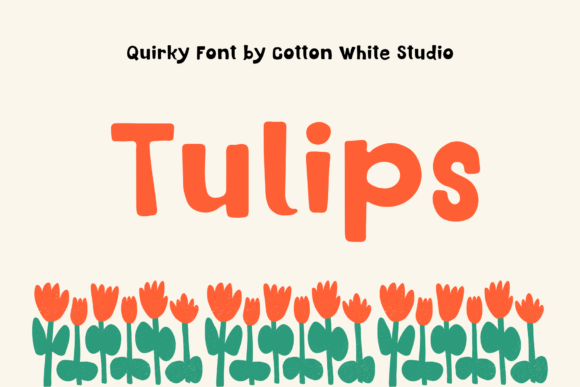
Journey into the world of Tulips Font, a captivating sans serif font family that will bring an enchanting touch to your creative projects.
Tulips Font is more than just a font; it's a gateway to a world of limitless creativity, allowing you to express your unique style with an array of captivating designs. Crafted by the talented artists at Cotton White Studio, Tulips Font is a font of choice for those seeking a font that exudes both charm and versatility.
With Tulips Font as your creative companion, you can effortlessly craft super cute logos that capture the essence of your brand, making it stand out from the crowd. Elevate your branding materials with Tulips Font's playful and whimsical character. Create notebooks and journals that inspire creativity and imagination, their pages adorned with Tulips Font's delightful charm.
Imagine transforming ordinary labels and stickers into eye-catching accents with Tulips Font, adding a touch of whimsy to every item they grace. Create blogs and quotes that resonate with your audience, using Tulips Font to convey your message with a unique and unforgettable charm. Let your greeting cards blossom with heartwarming sentiments, beautifully expressed with Tulips Font's delicate strokes.
Envision tea towels adorned with Tulips Font's whimsical designs, adding a touch of delight to your kitchen decor. Design apparel, pillows, mugs, and toys that radiate cuteness with Tulips Font, bringing joy to those who use them. Create posters that captivate and inspire, using Tulips Font to deliver your message with impact.
For the little ones, Tulips Font is a perfect choice for creating baby clothing that exudes charm and innocence. Picture books come alive with whimsical illustrations, accompanied by Tulips Font's playful lettering. And for those who love to capture life's special moments, Tulips Font is the ideal choice, adding a touch of magic to your photo albums and scrapbooks.
With Tulips Font at your fingertips, the possibilities are endless. Dive into the world of design with a font that ignites your creativity and leaves a lasting impression. Join the Tulips Font community and embark on a design adventure that will leave you captivated.